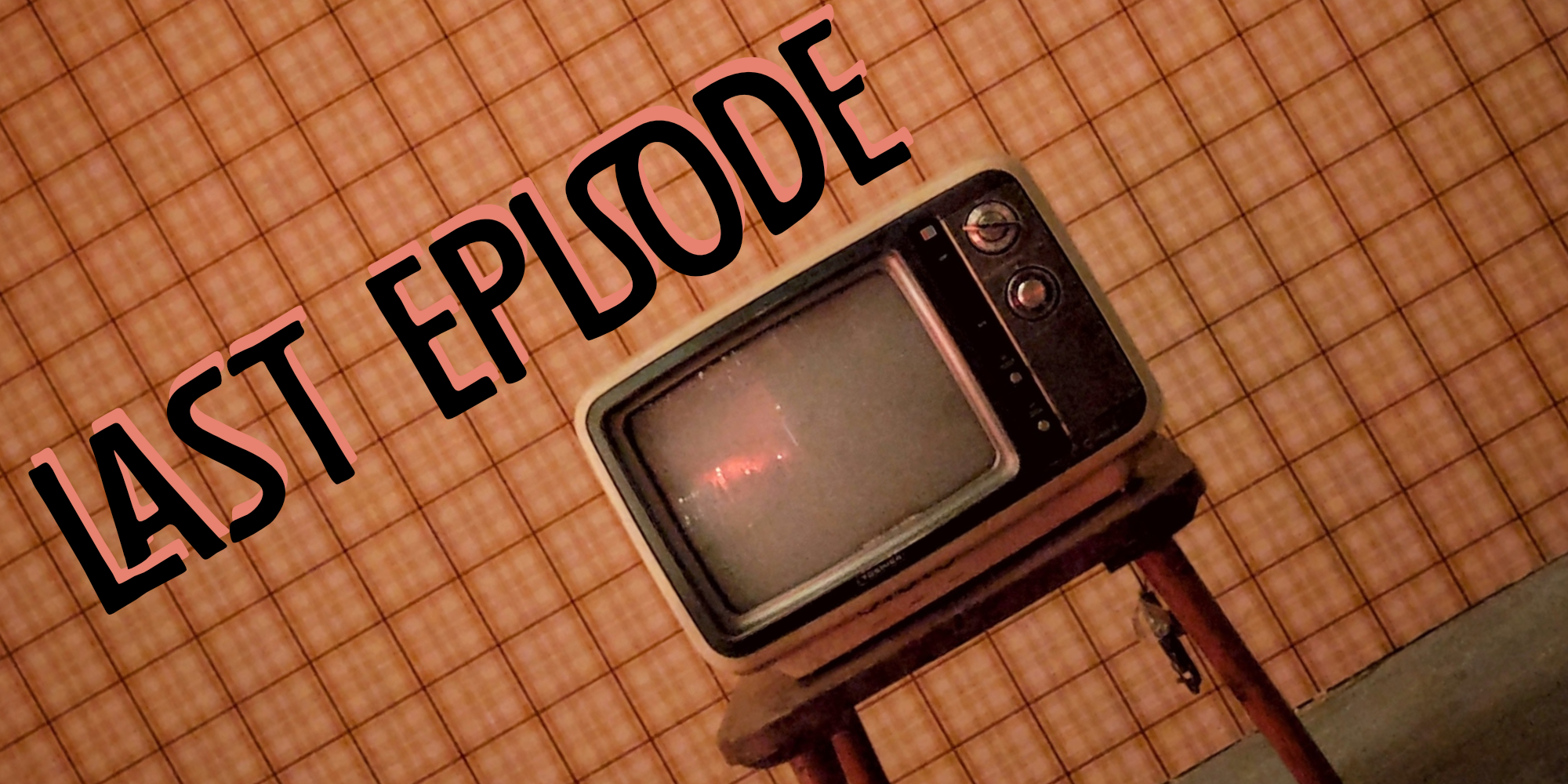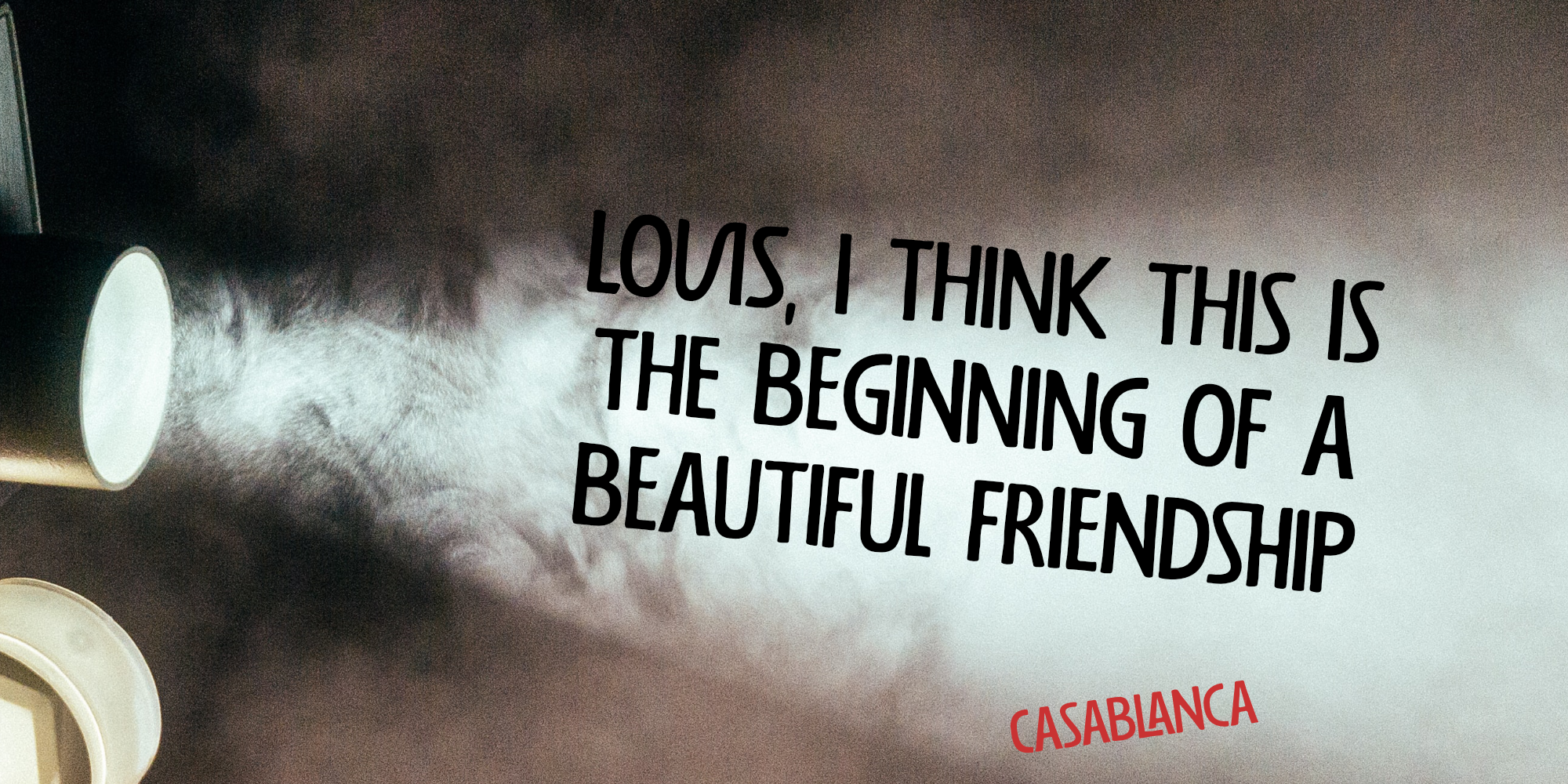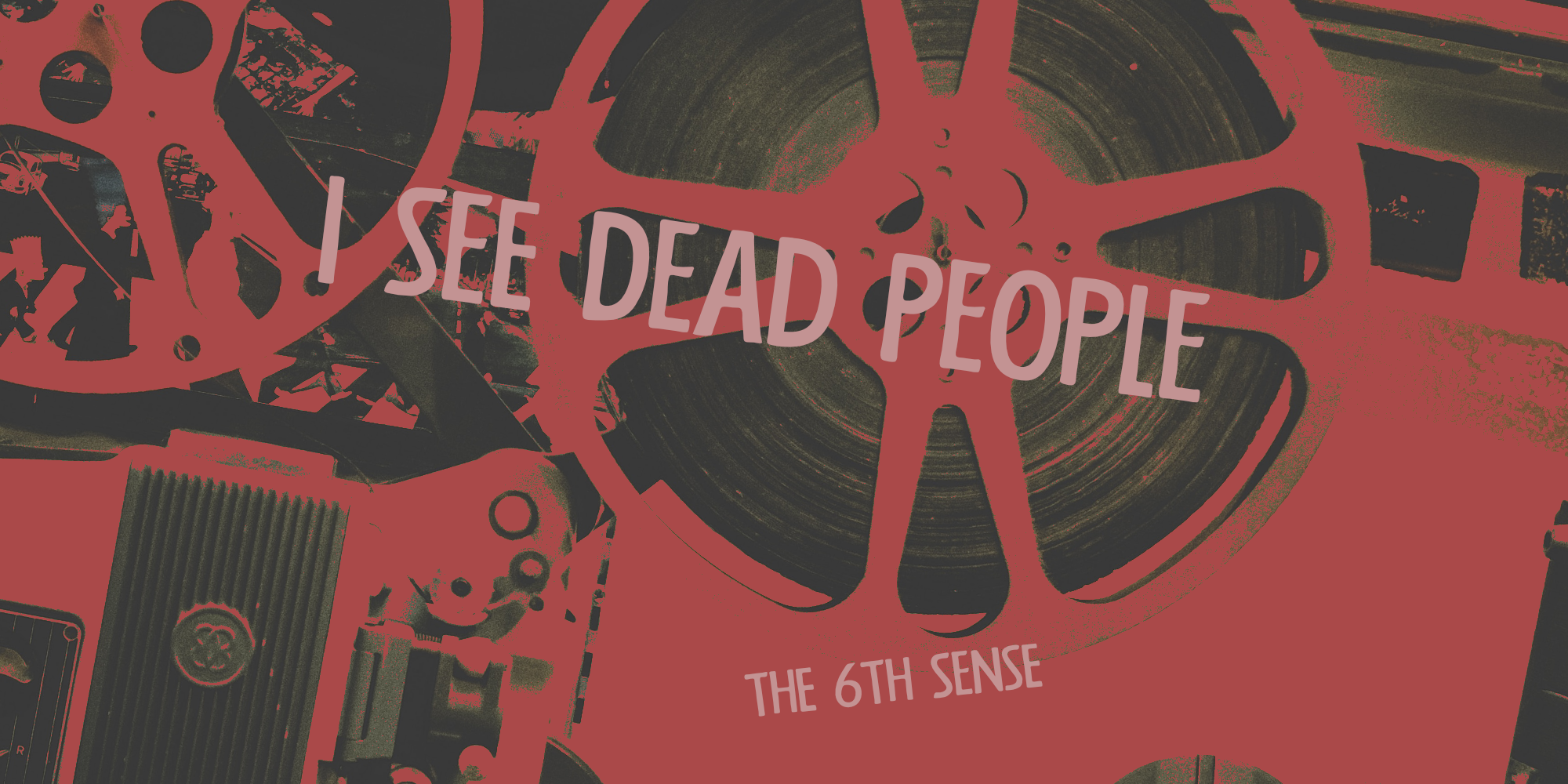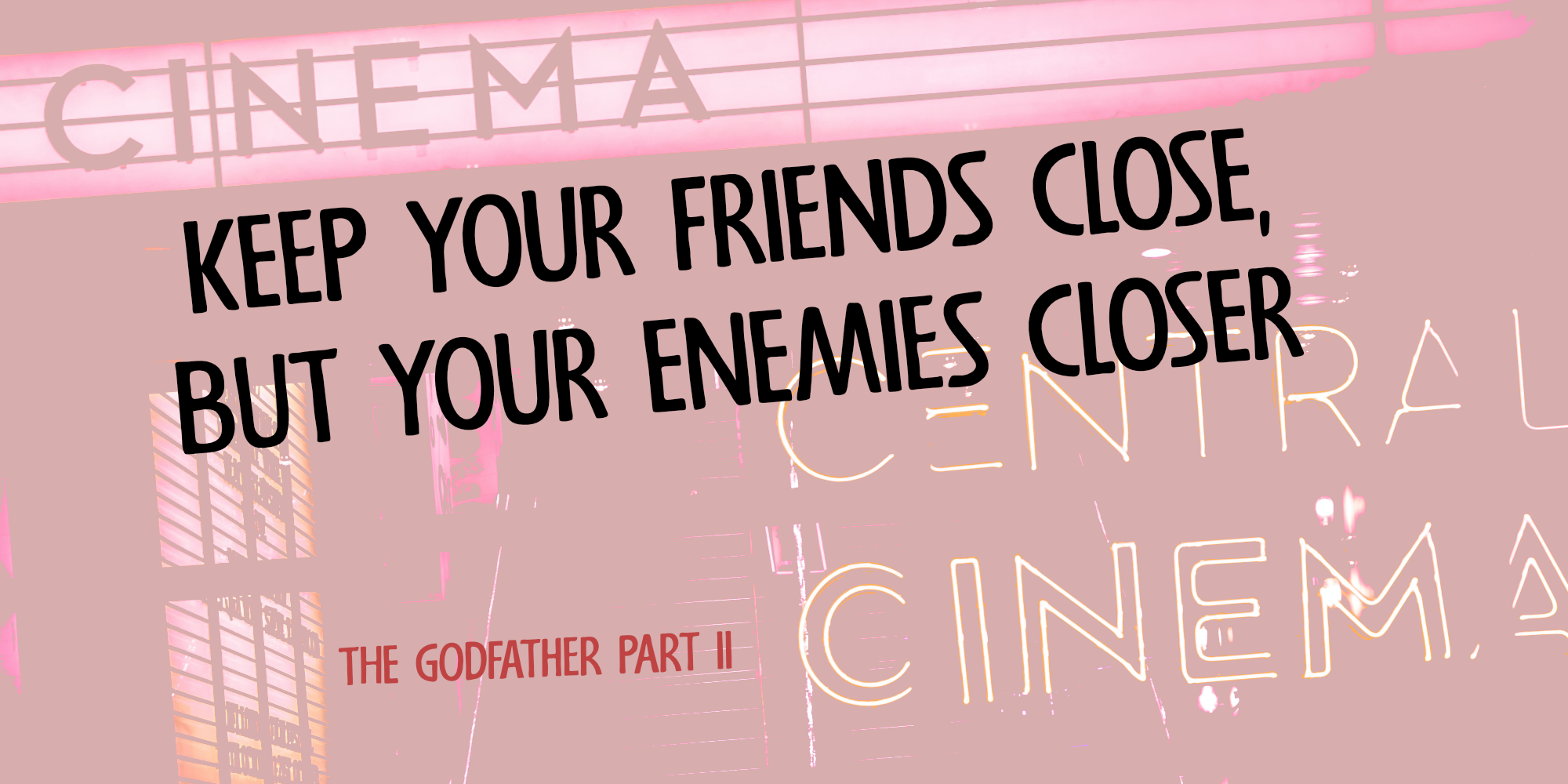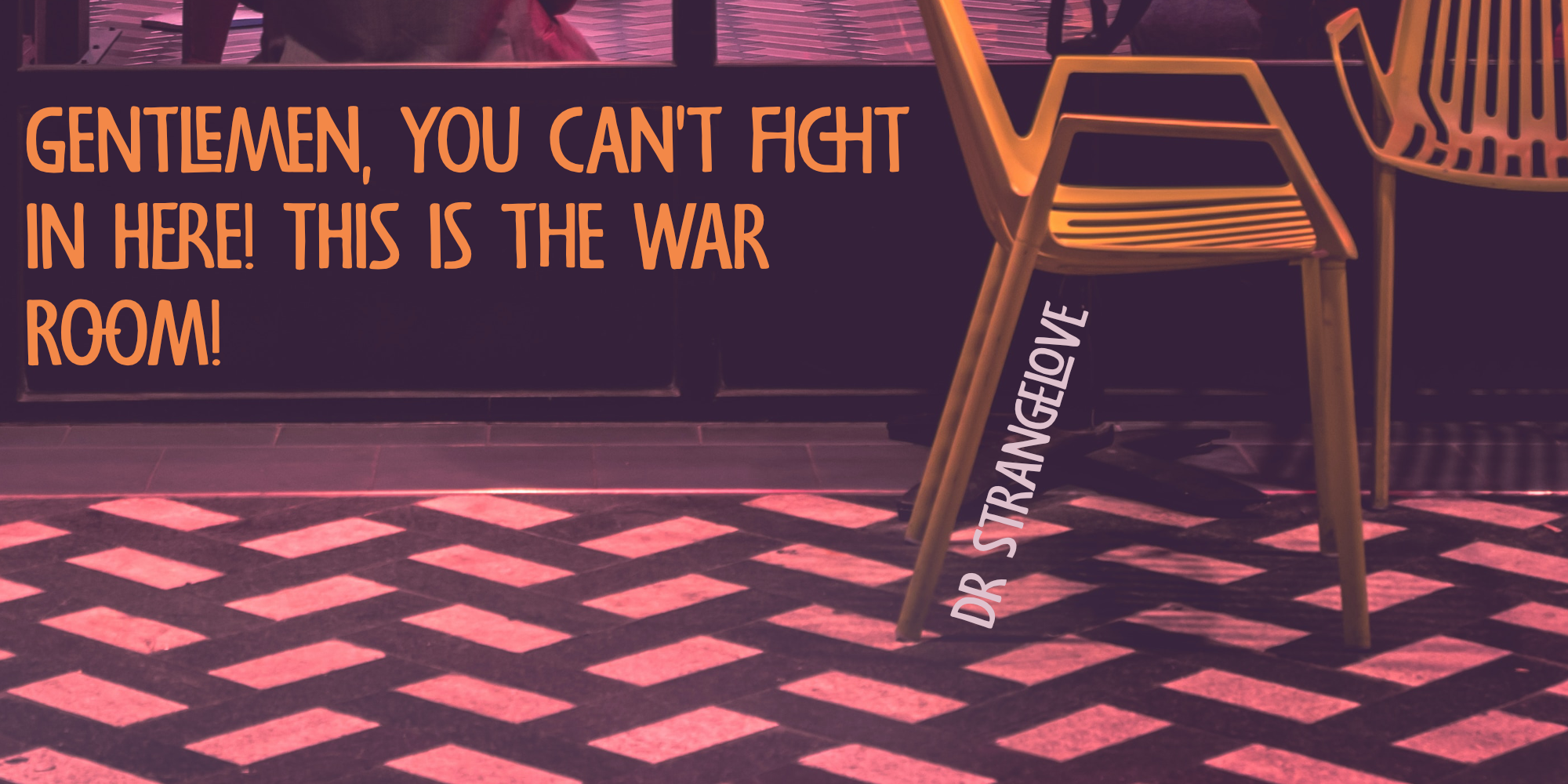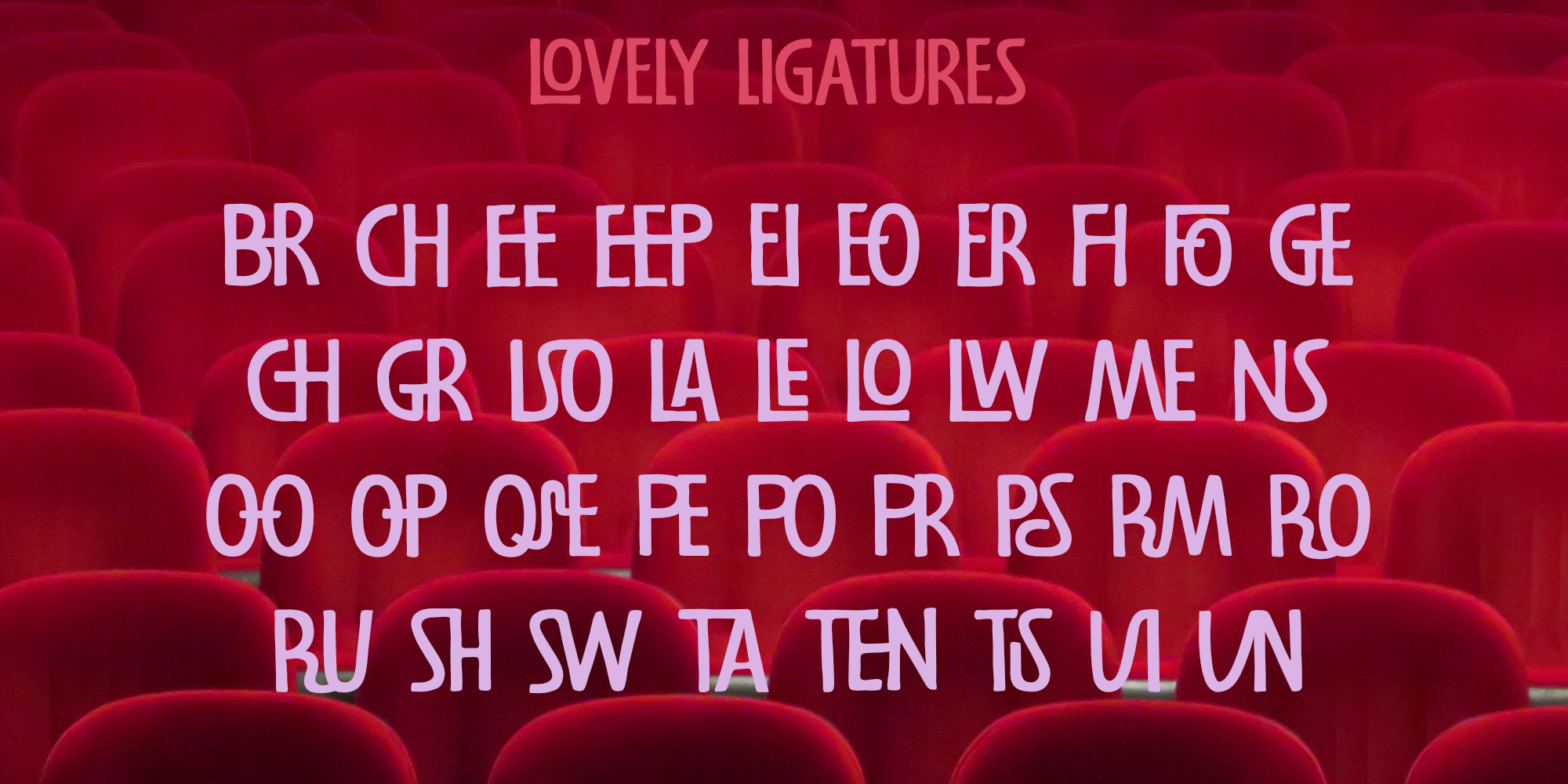
Last Episode (2 fonts)
Last Episode is a handmade, all caps font - great for titling, book covers and posters. It comes with a set of alternates and some really interesting discretional ligatures.